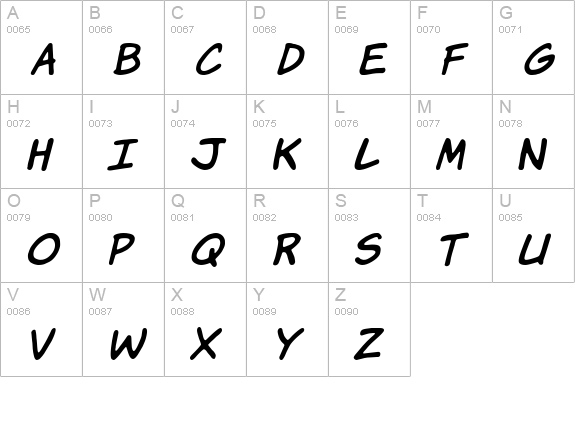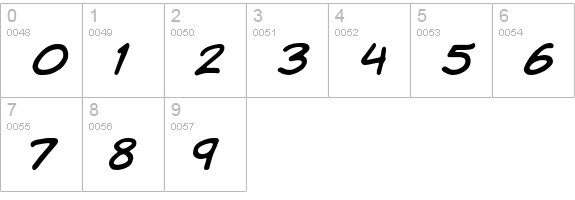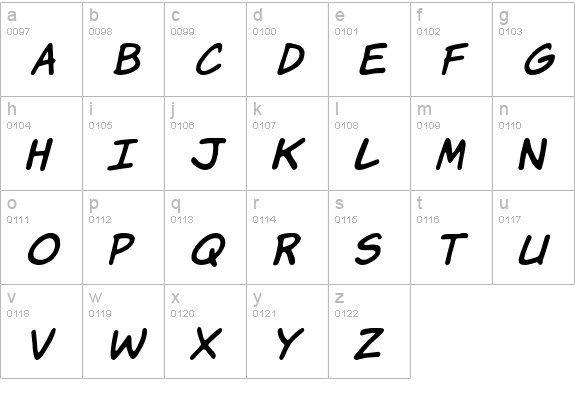
Komika Hand Italic is a distinctive, italic variant in the Komika typeface family \xE2\x80\x94 well suited to design and typography projects.
The Komika Hand Italic font is a whimsical and playful typeface that exudes charm and character. Its unique italic style adds a touch of elegance and movement to any design project. The fluid strokes and uneven lines give it a hand-drawn feel, making it perfect for adding a personal touch to your work. Best of all, this charming font is available for free download at FontsMarket.com. Whether you're looking to create eye-catching designs for posters, invitations, or social media, the Komika Hand Italic font is sure to make your text stand out. Embrace creativity and individuality with this delightful and freely accessible typeface.